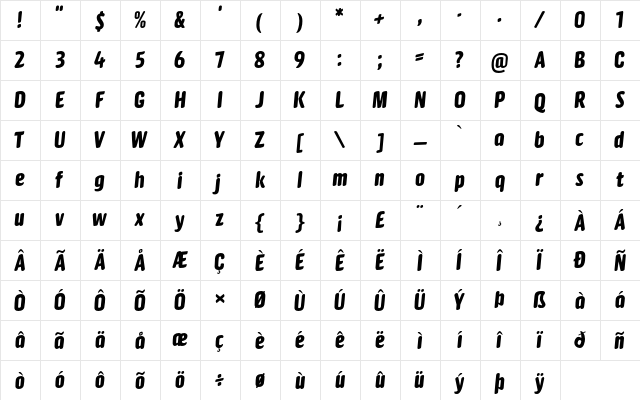
A Lame Bee Regular
Design Context for A Lame Bee Typeface
A Lame Bee takes a measured approach to typography — its balanced proportions and neutral character make it a reliable workhorse for both digital and print work.